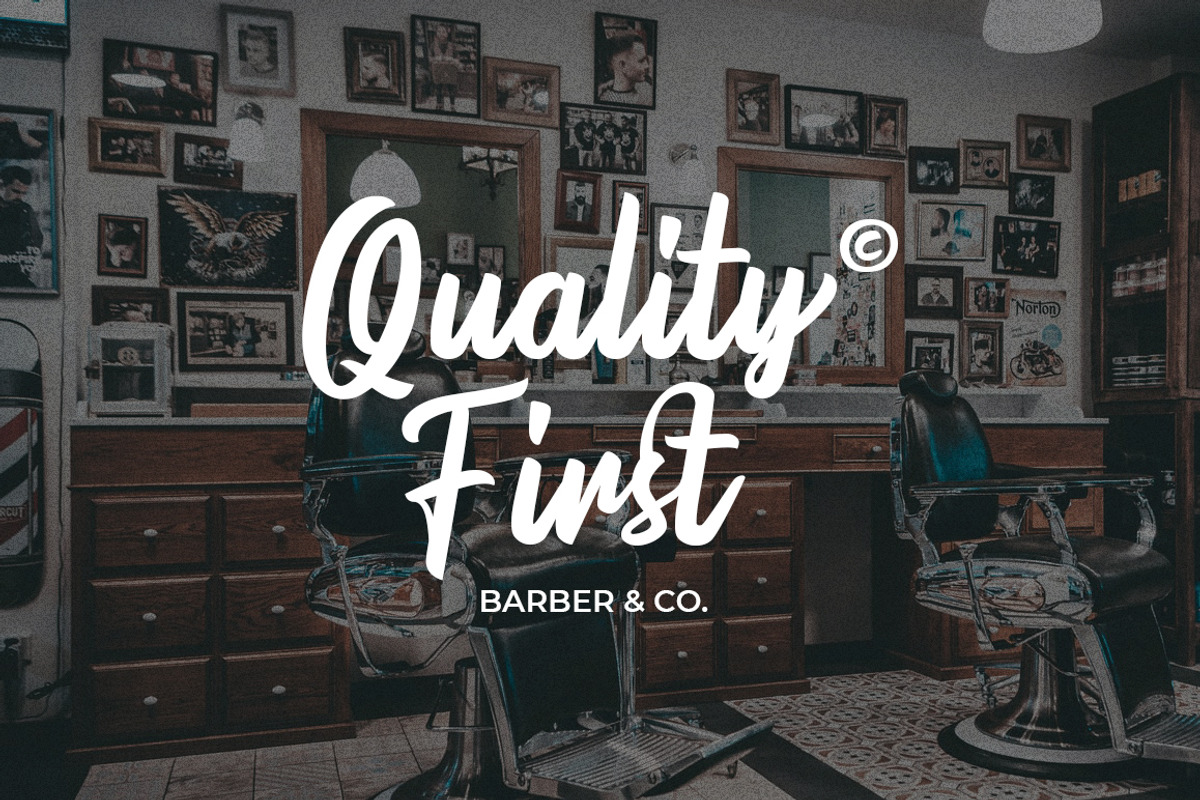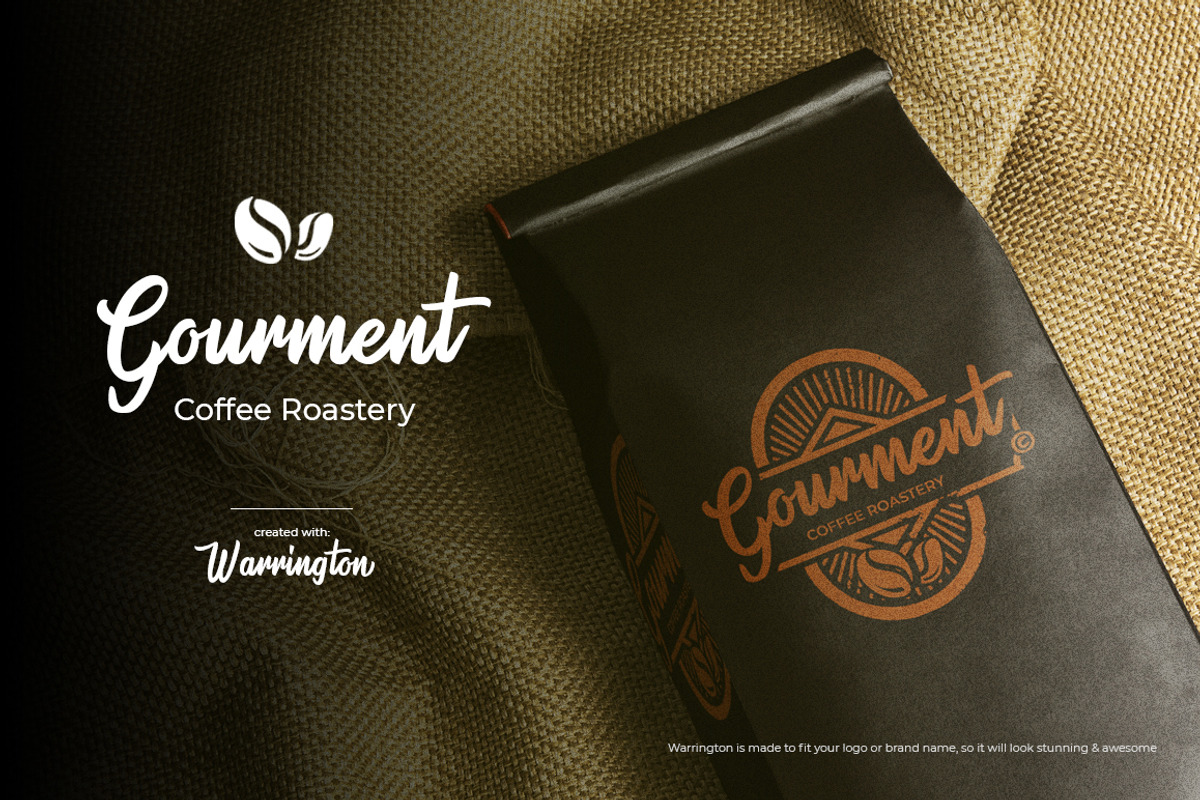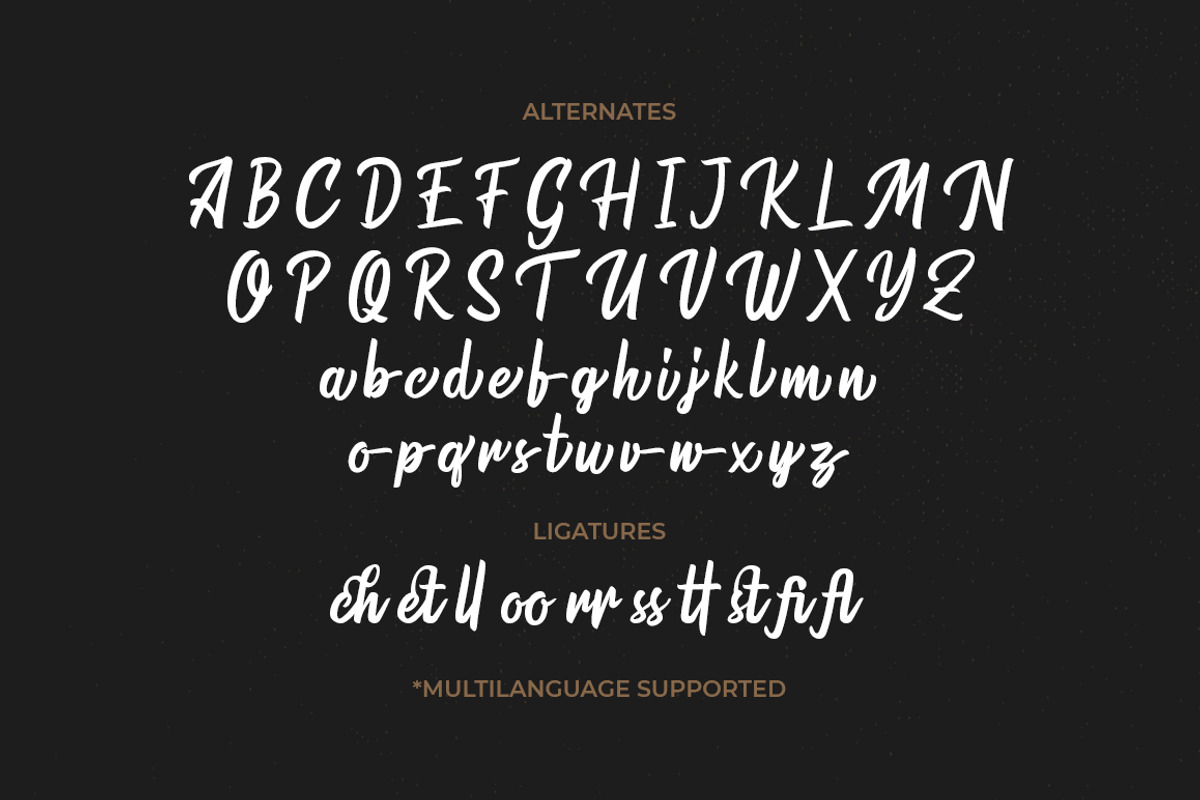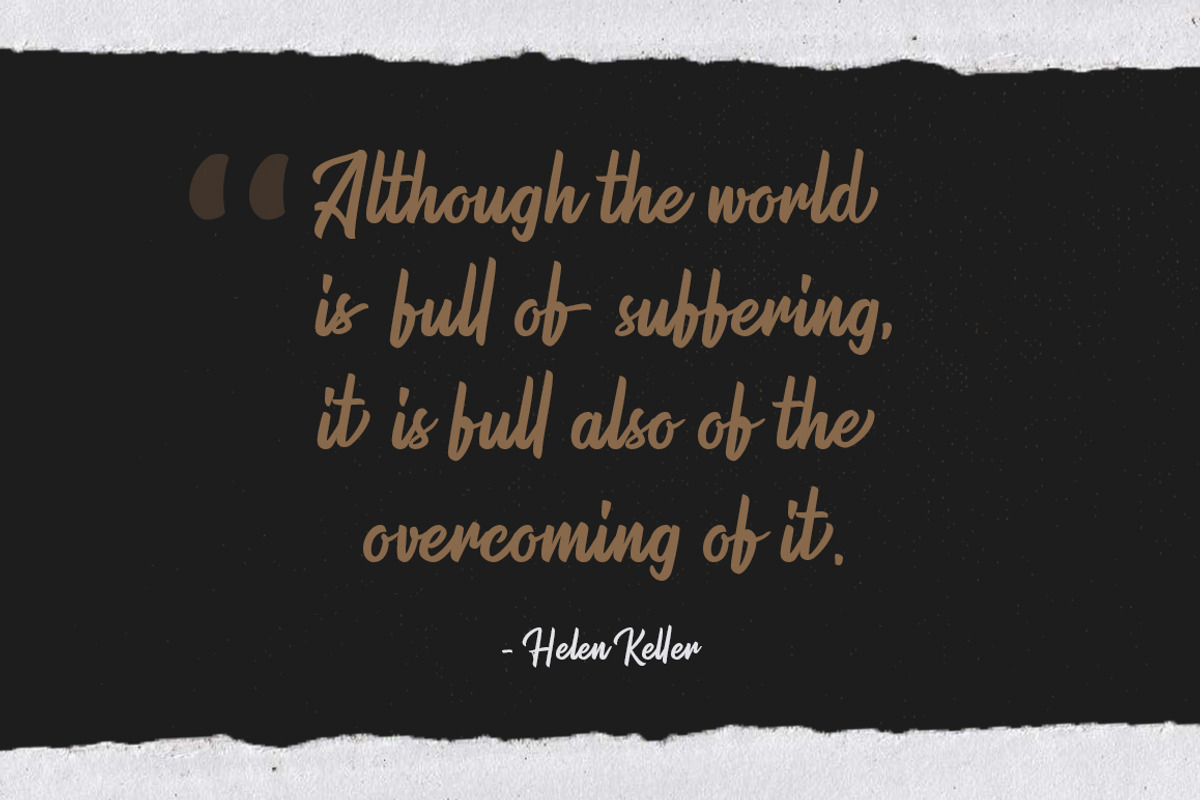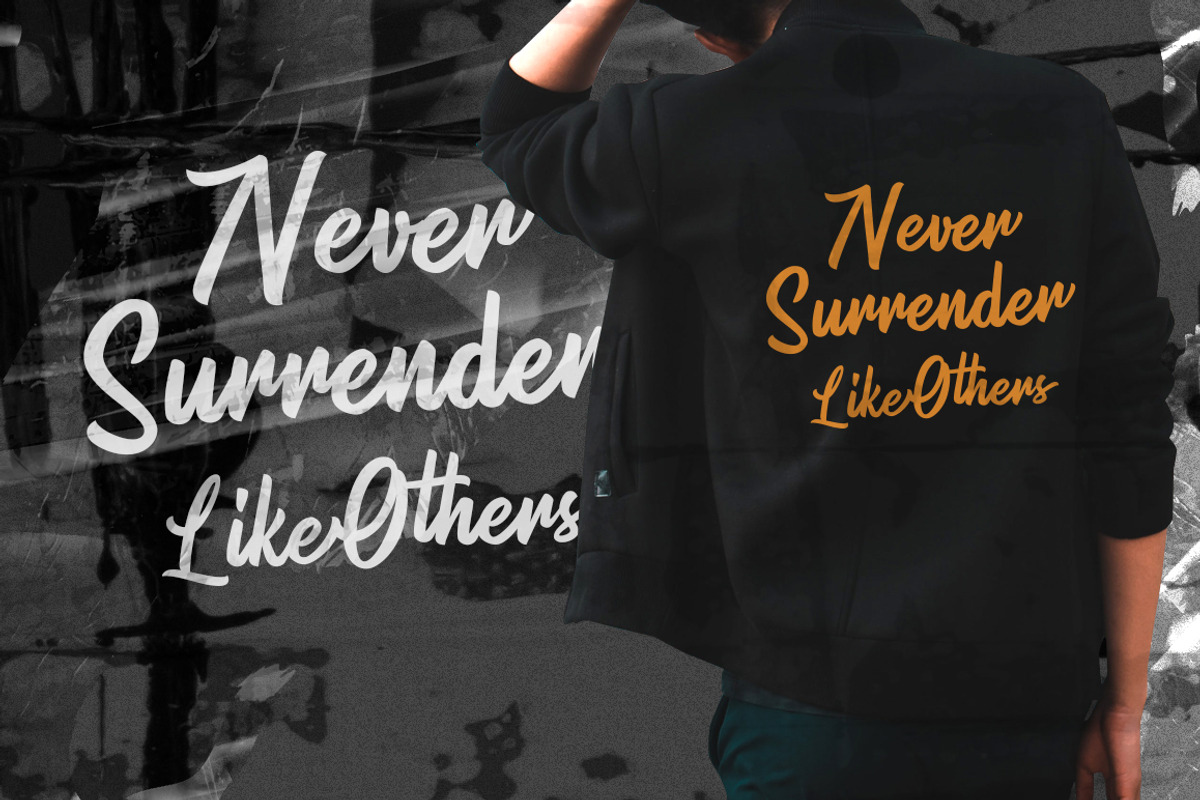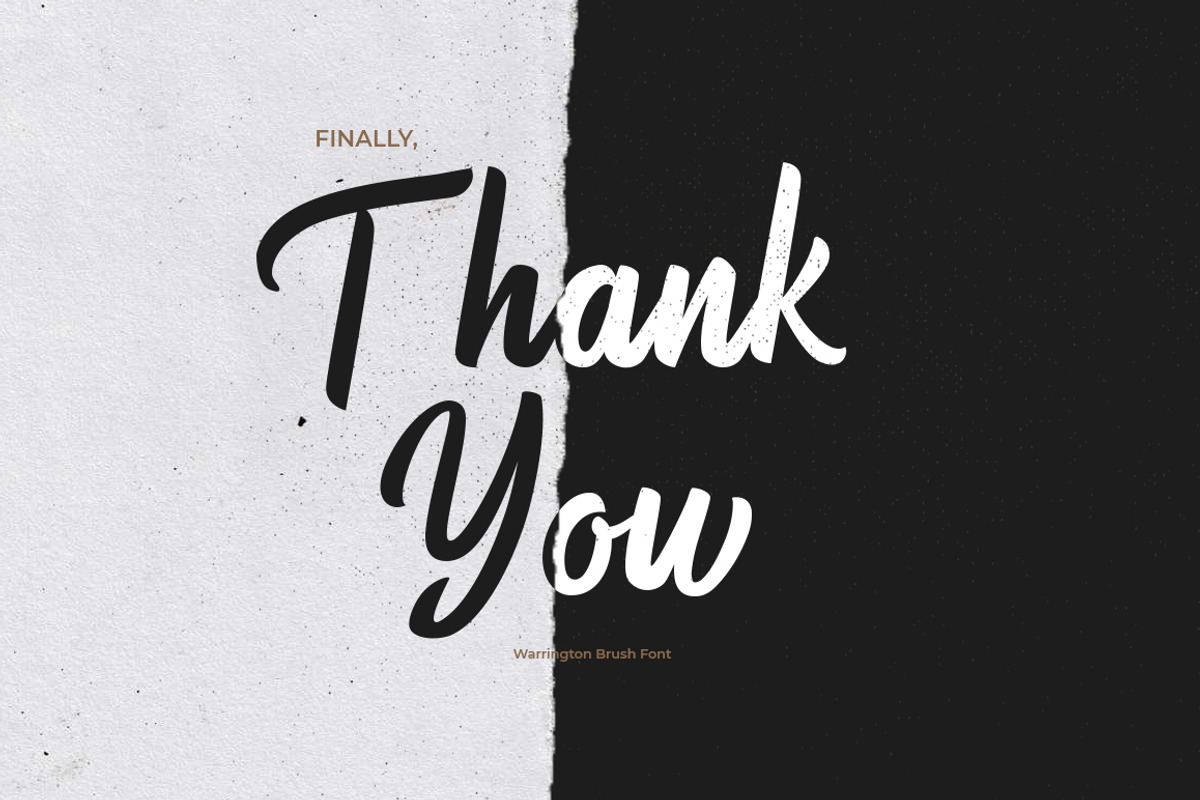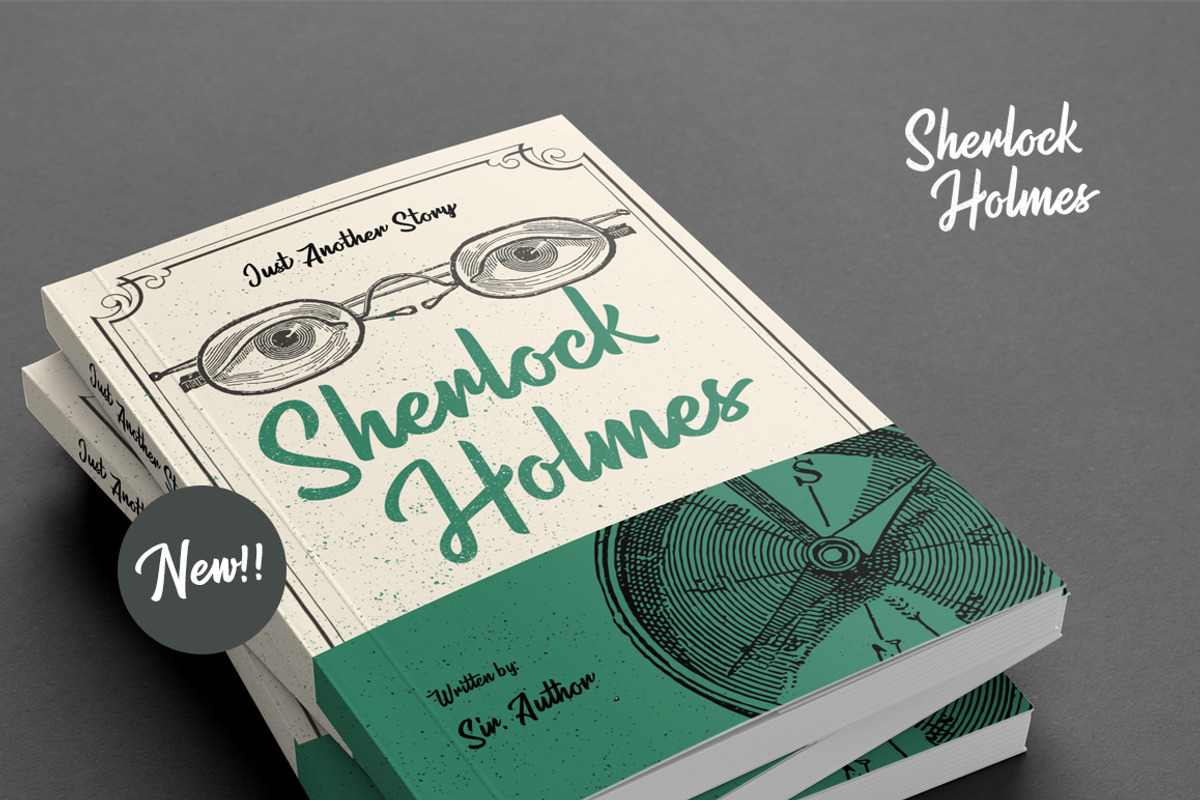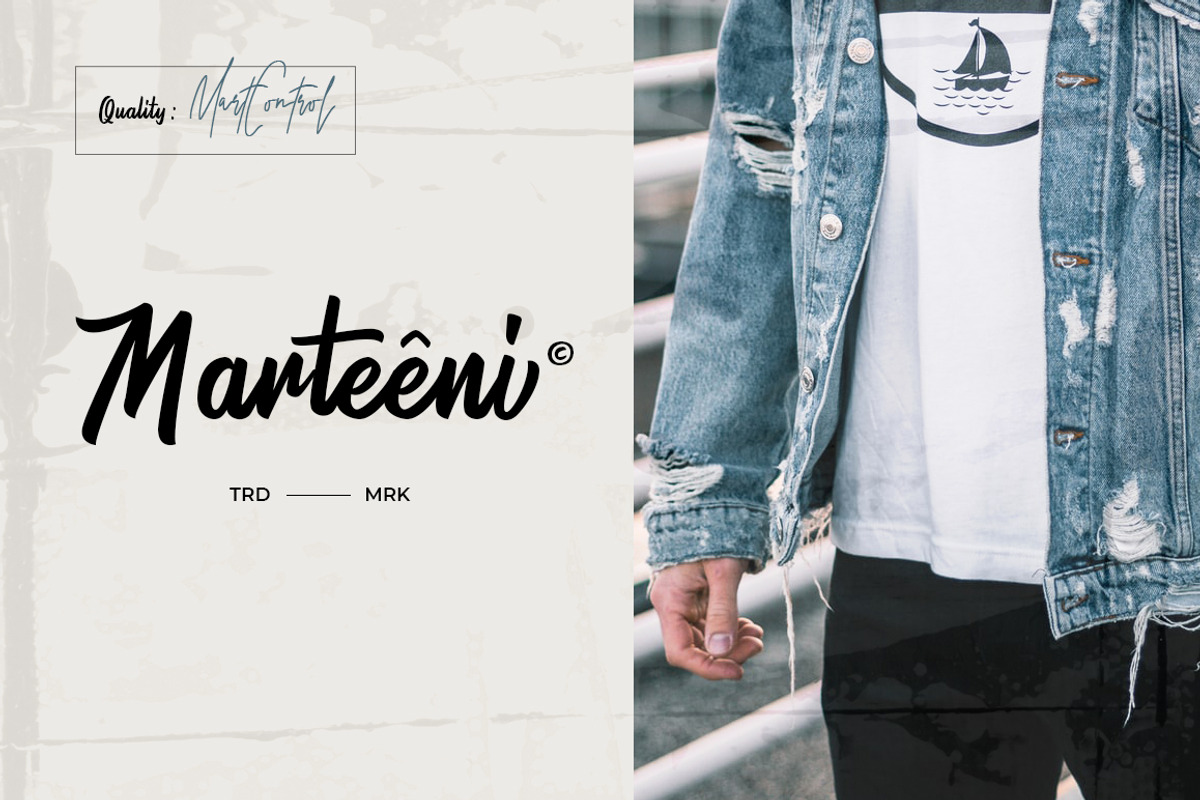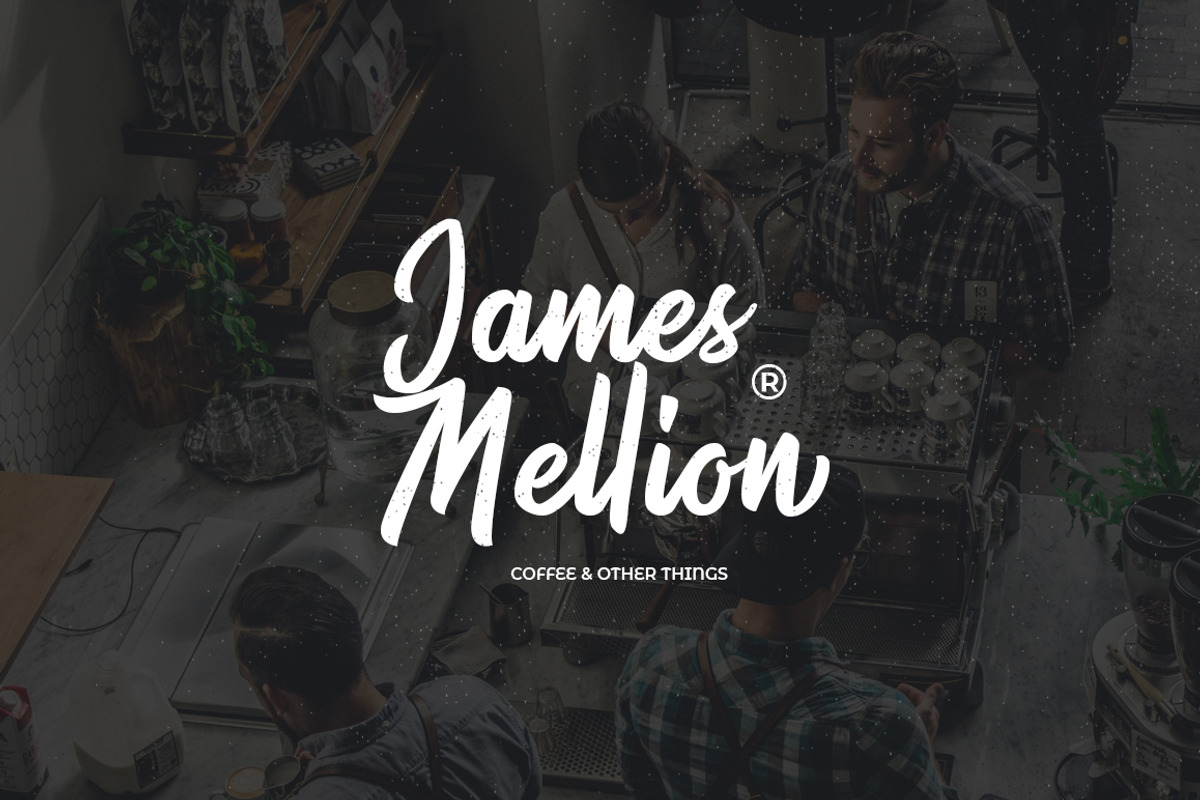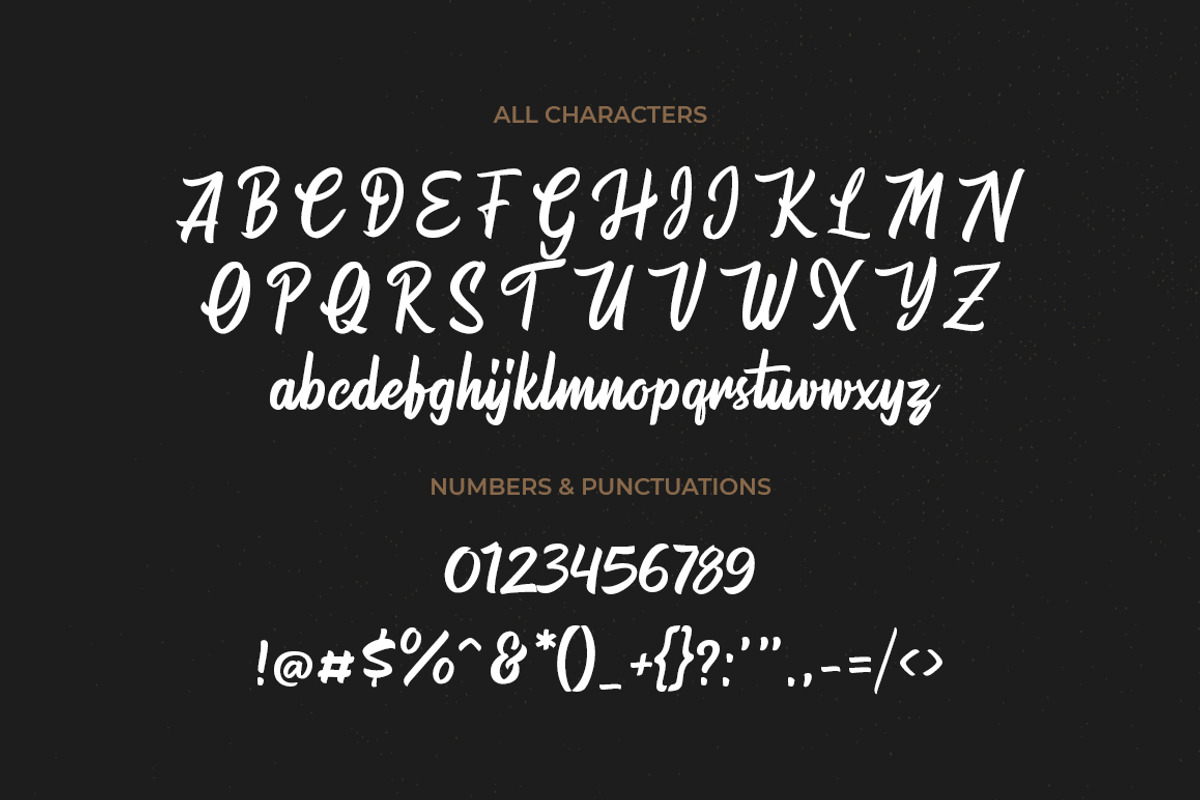
Warrington
Warrington is an elegant and flowing handwritten font. It is PUA encoded which means you can access all of the glyphs and swashes with ease! It features a varying baseline, smooth lines, gorgeous glyphs, and stunning alternates. It maintains its classy calligraphic influences while feeling contemporary and fresh. Fall in love with this font and bring your projects to the highest levels!